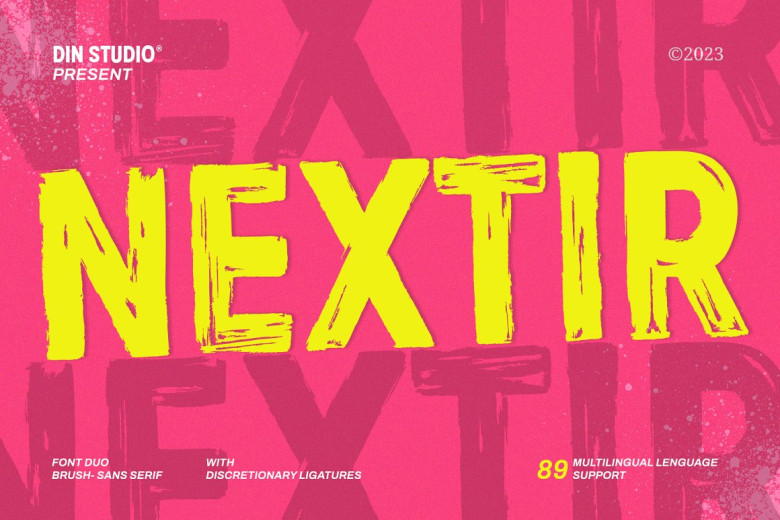
Nextir Font
Nextir is an exceptional brush font that immediately grabs readers’ attention and redefines contemporary typography. Boasting large letters with heavy weight and distinctive square letter forms that stand for strength and modern style.
Nextir stands out from other fonts by featuring distinctive brush strokes, giving it a natural appearance in its design. A font which stands out with modern flair. Combining large letters, heavyweight square forms, and brush details creates a font which stands out.
Nextir font offers the ideal balance of strength and artistic style to add visual texture and sophistication to your designs. Additionally, its features enable you to take full advantage of this font family.
Nextir Brush Font